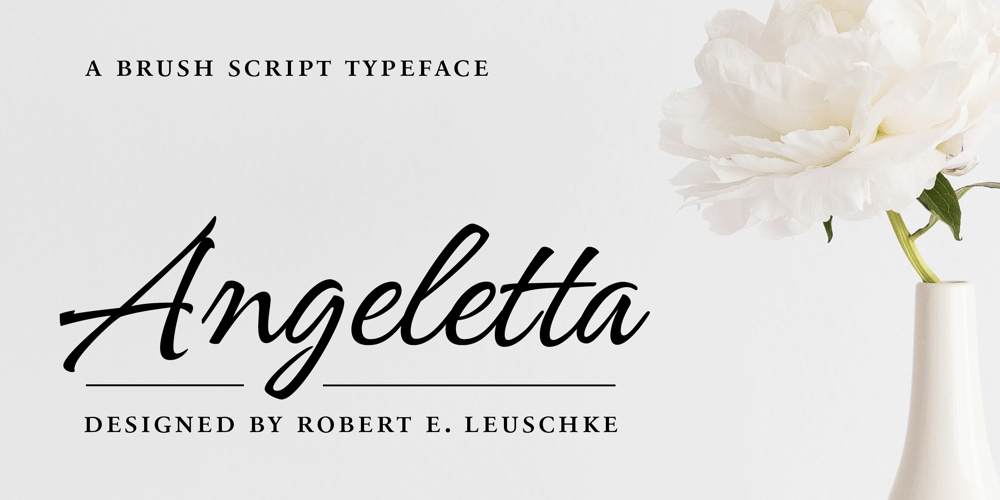
Angeletta Font Family was designed by Rob Leuschke and published by Monotype. Angeletta contains 1 styles and family package options. Despite being drawn digitally, Angeletta is a typeface in the hand-lettering tradition. It draws on designer Rob Leuschke’s three decades of experience with pen and ink, including his time creating scripts for Hallmark Cards. Spontaneous and energetic, Angeletta is satisfyingly inky – with strokes almost spilling into one another. Its quirky personality and titling version makes it a good choice for packaging and social expression, while its distinctive character could work well in branding, perhaps paired with a more sedate sans serif. The Angeletta typeface is a calligraphic script designed by Robert E. Leuschke exclusively for Monotype. It is available in OpenType OTF and TTF fonts formats. Angeletta has 900 glyphs with OpenType typographic features like contextual and stylistic alternatives, swashes, ligatures and fractions.